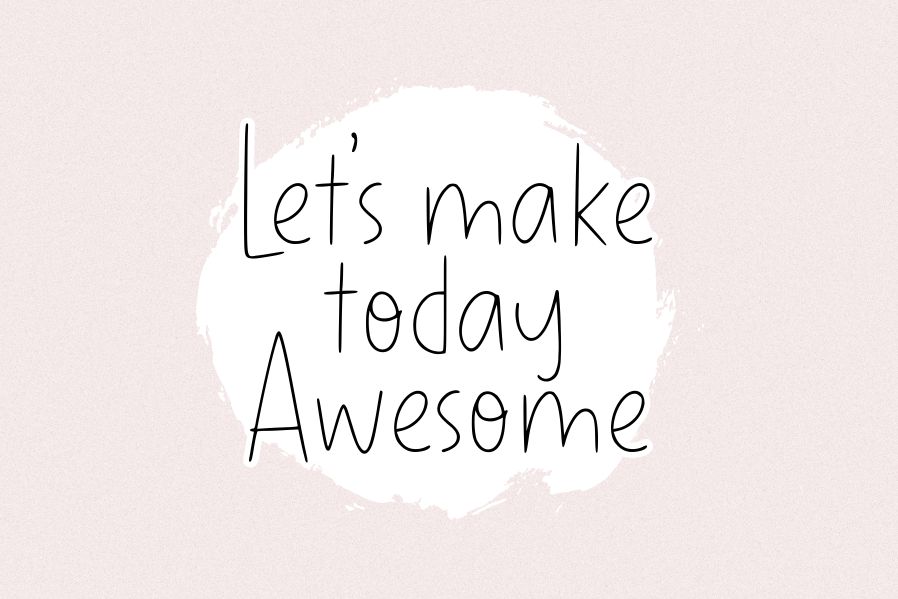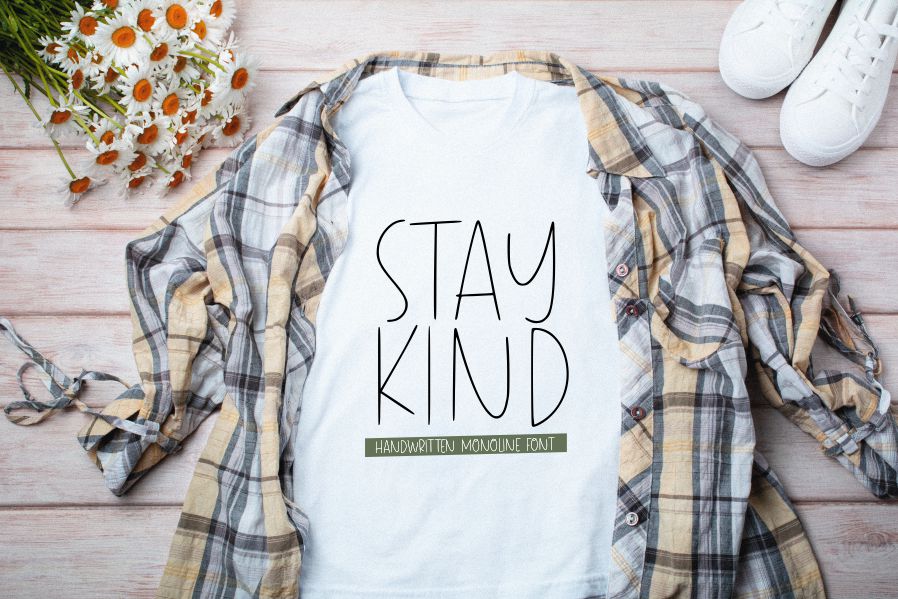
Proudly Presenting, Elfeylasting A Handwrittten Thin Font.
Elfeylasting is perfect for any titles, logo, product packaging, branding project, megazine, social media, wedding, or just used to express words above the background.